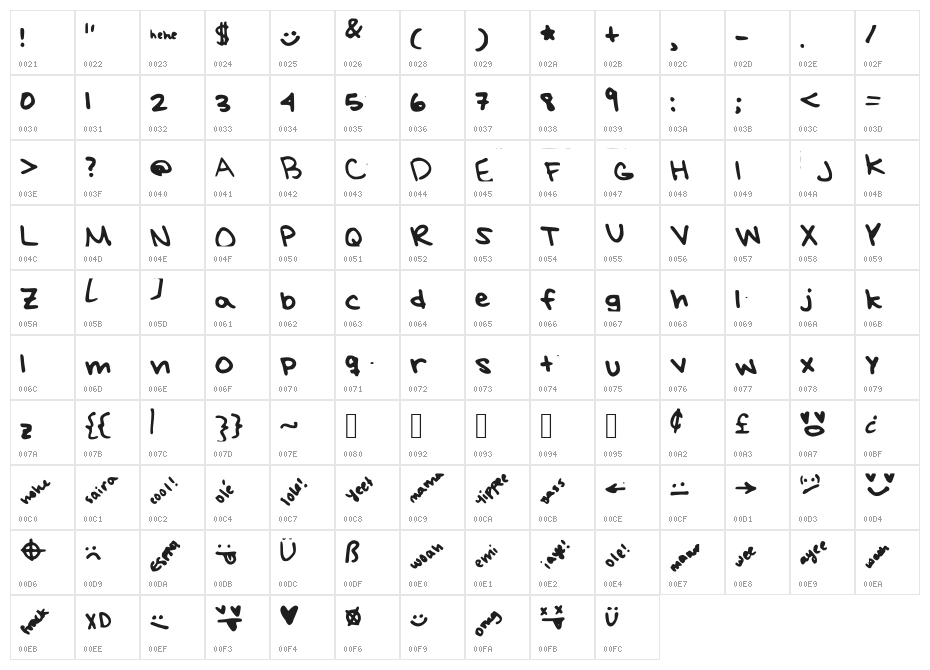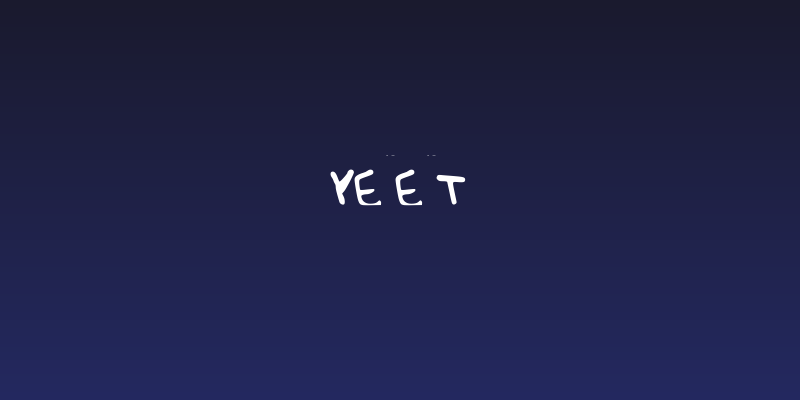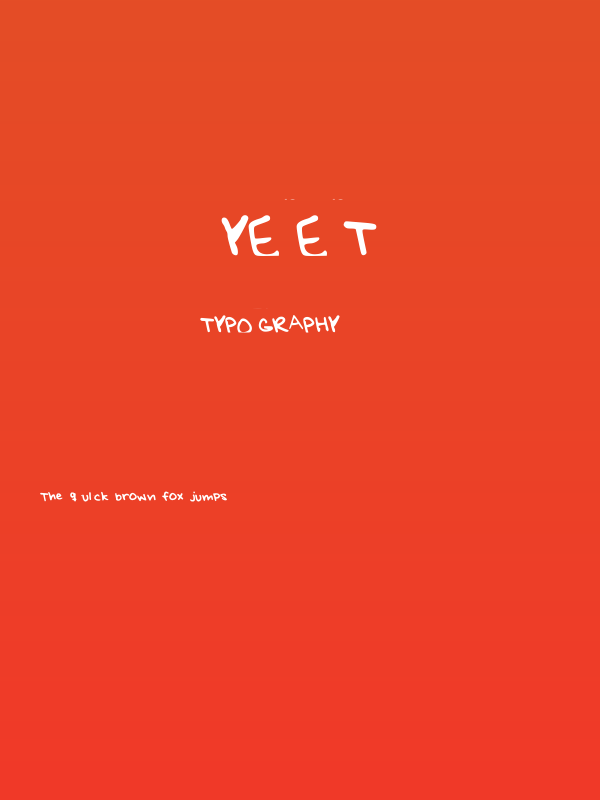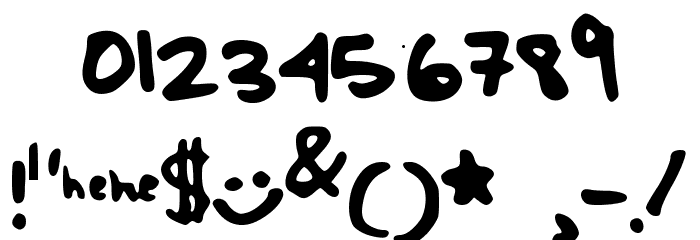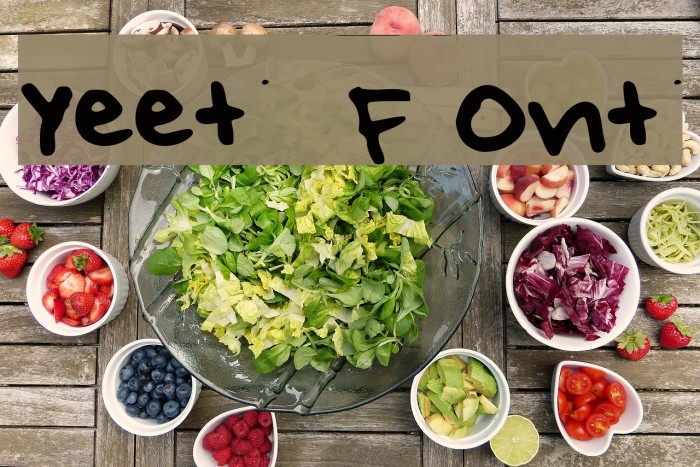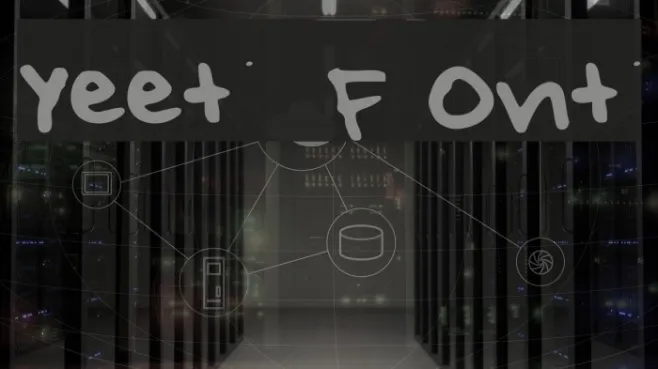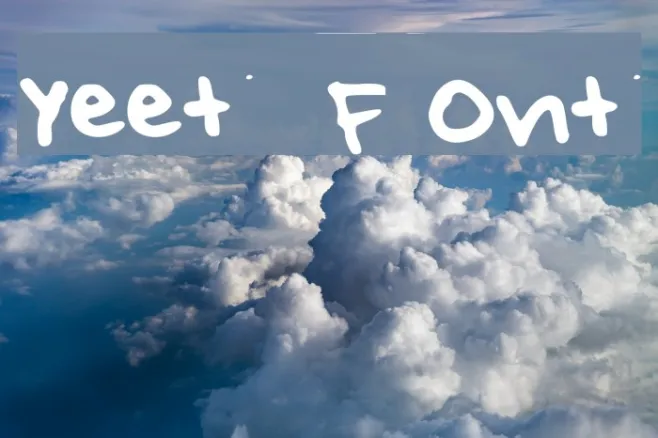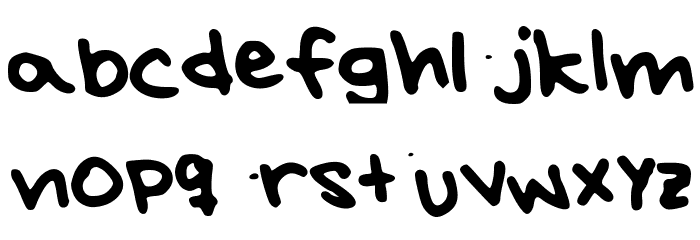
yeet Font
yeet Description
This playful and energetic font features a handwritten style with bold, irregular strokes that give it a lively and informal appearance. The characters are slightly uneven, adding to the casual and spontaneous feel. The uppercase and lowercase letters maintain a consistent style, with rounded edges and a slight slant, enhancing the font's approachable and friendly vibe. The numbers and special characters are crafted with the same playful touch, making them suitable for creative and informal projects. This font is perfect for designs that require a personal and whimsical touch.
| Use Case | Logos, Headlines, Informal Text |
| Proposed Projects | Ideal for children's books, playful branding, casual invitations, and creative social media graphics. |